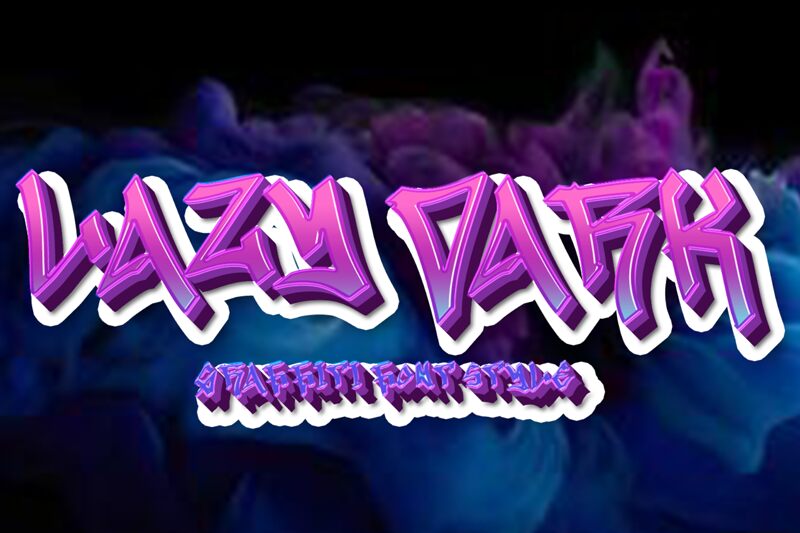
Lazy Dark font by Yoga Letter is a free graffiti typeface with vibrant and dynamic characters. Made to stand out with its bold features while mixing in a street culture influence, it defies the rules with style making it an expressive tool perfect for modern day applications. Use it to add a rebellious touch to a variety of design projects.
The font would look amazing in posters, magazine covers, and music album covers. Its urban touch is a must-have for signage and outdoor advertising with vibrant and contrasting backgrounds that will make it visible from the distance.